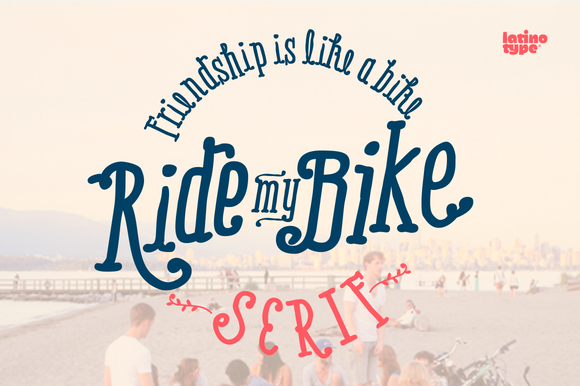
Ride My Bike Serif Pro Family
Ride my bike Serif is a new version of successful handmade typeface Ride My Bike designed by Coto Mendoza. Inspired by street style and the new culture that moves pedaling around the city.